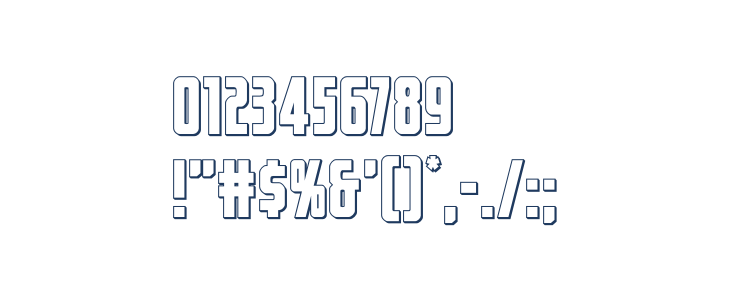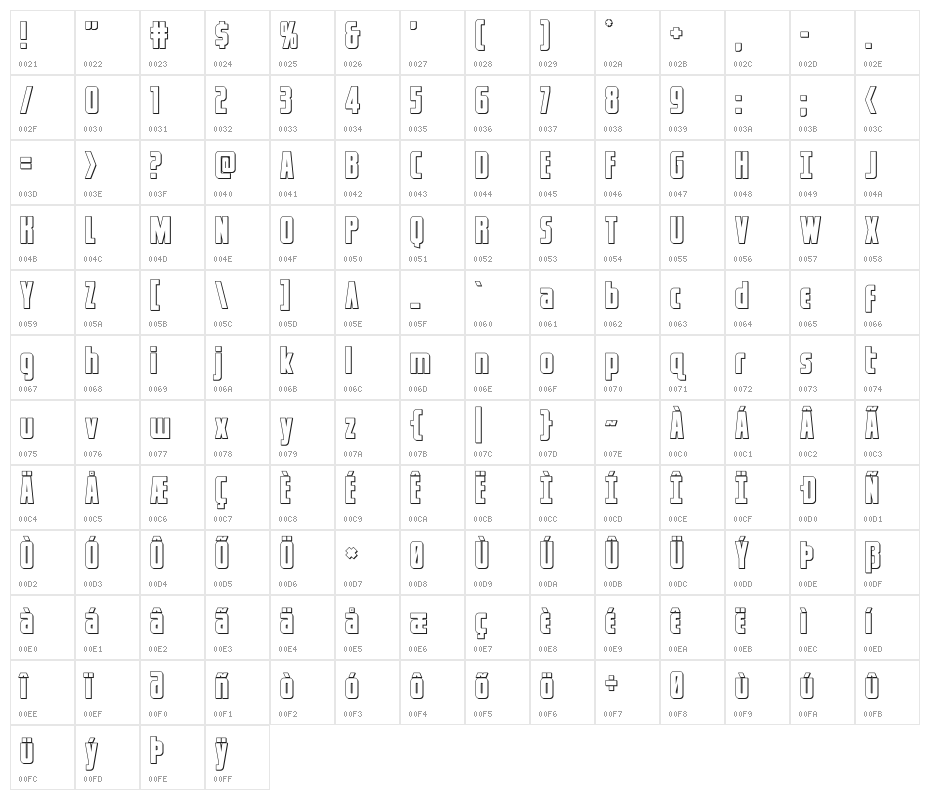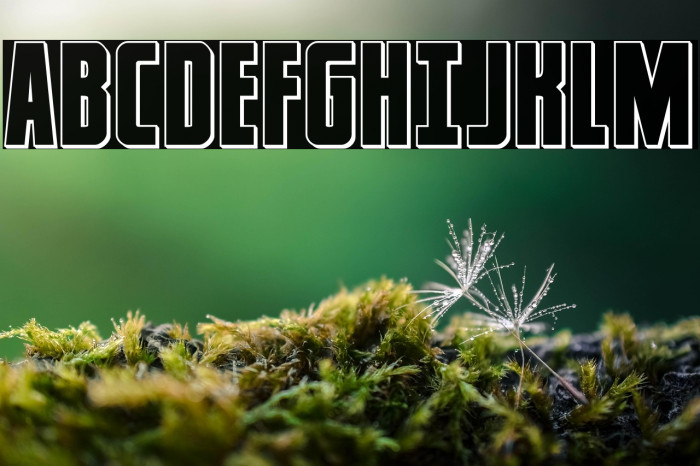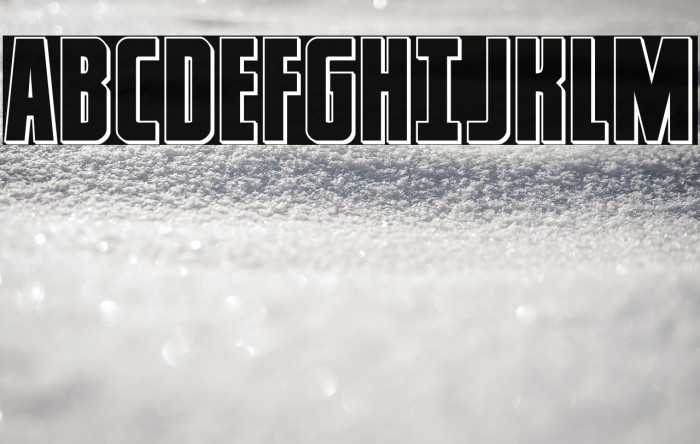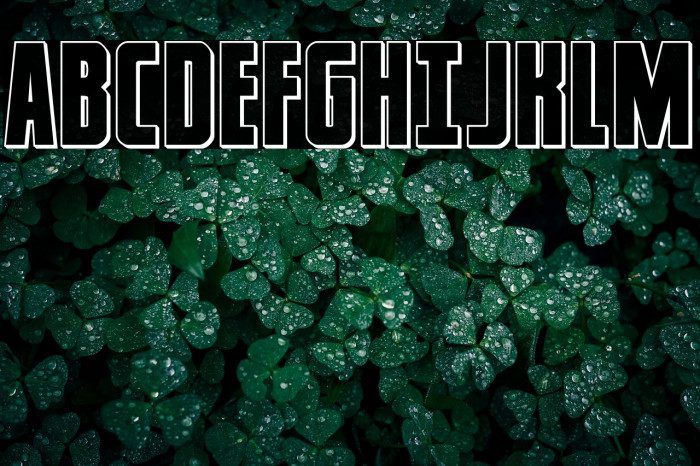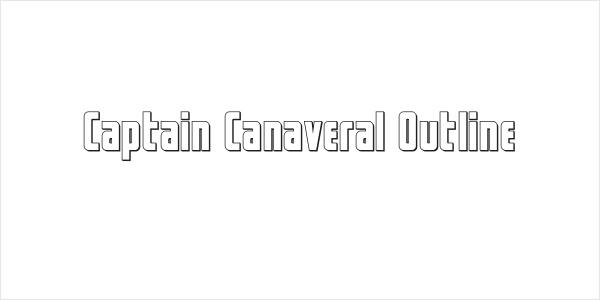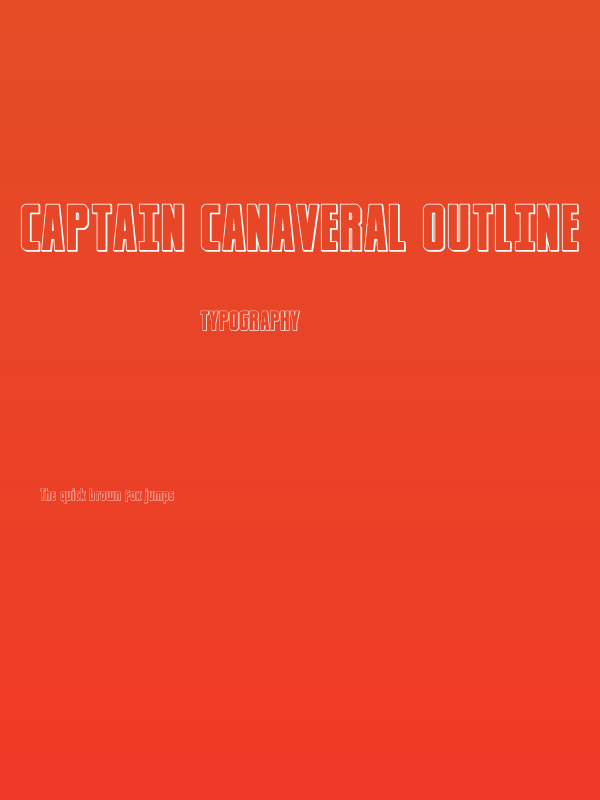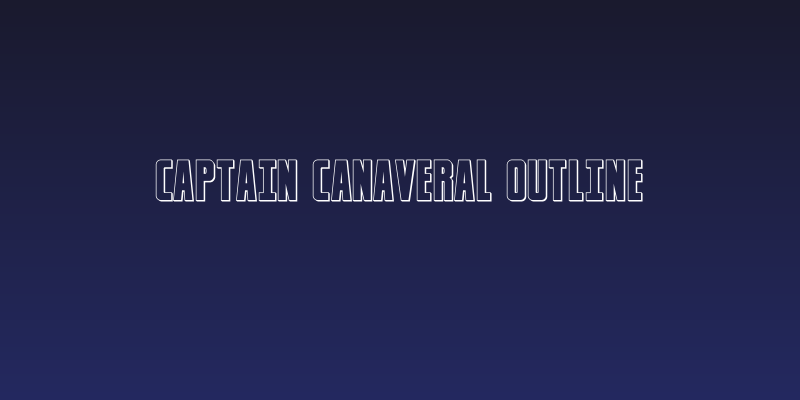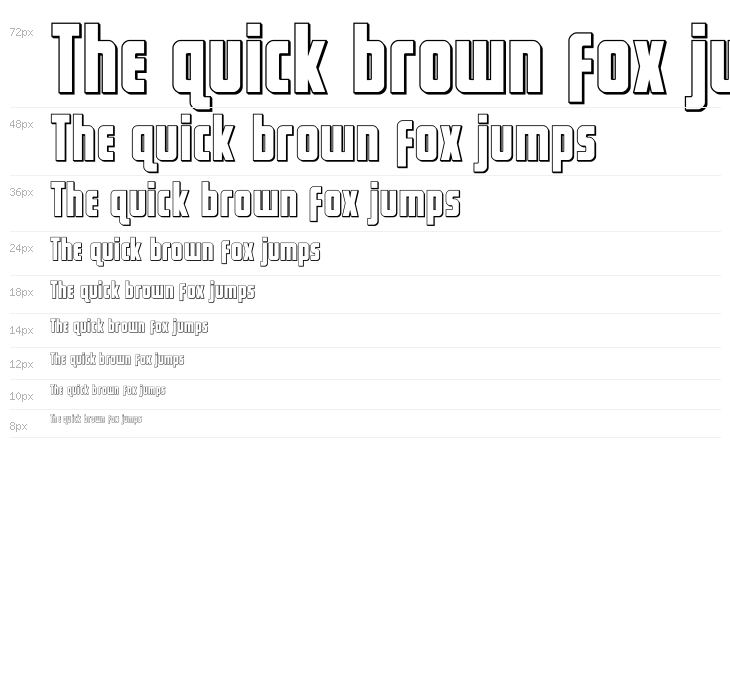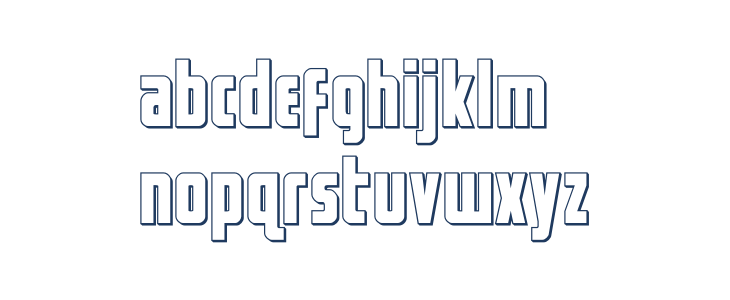
Captain Canaveral Outline Font
Captain Canaveral Outline Description
This font features a bold, outlined style with a strong geometric structure. The uppercase and lowercase letters maintain a consistent width, creating a uniform appearance. The characters are designed with sharp angles and straight lines, giving them a modern and industrial feel. The numbers and special characters follow the same design principles, ensuring a cohesive look across all glyphs. The outline effect adds a layer of depth, making the text stand out prominently. This font is highly legible and eye-catching, suitable for various design applications where a bold statement is desired.